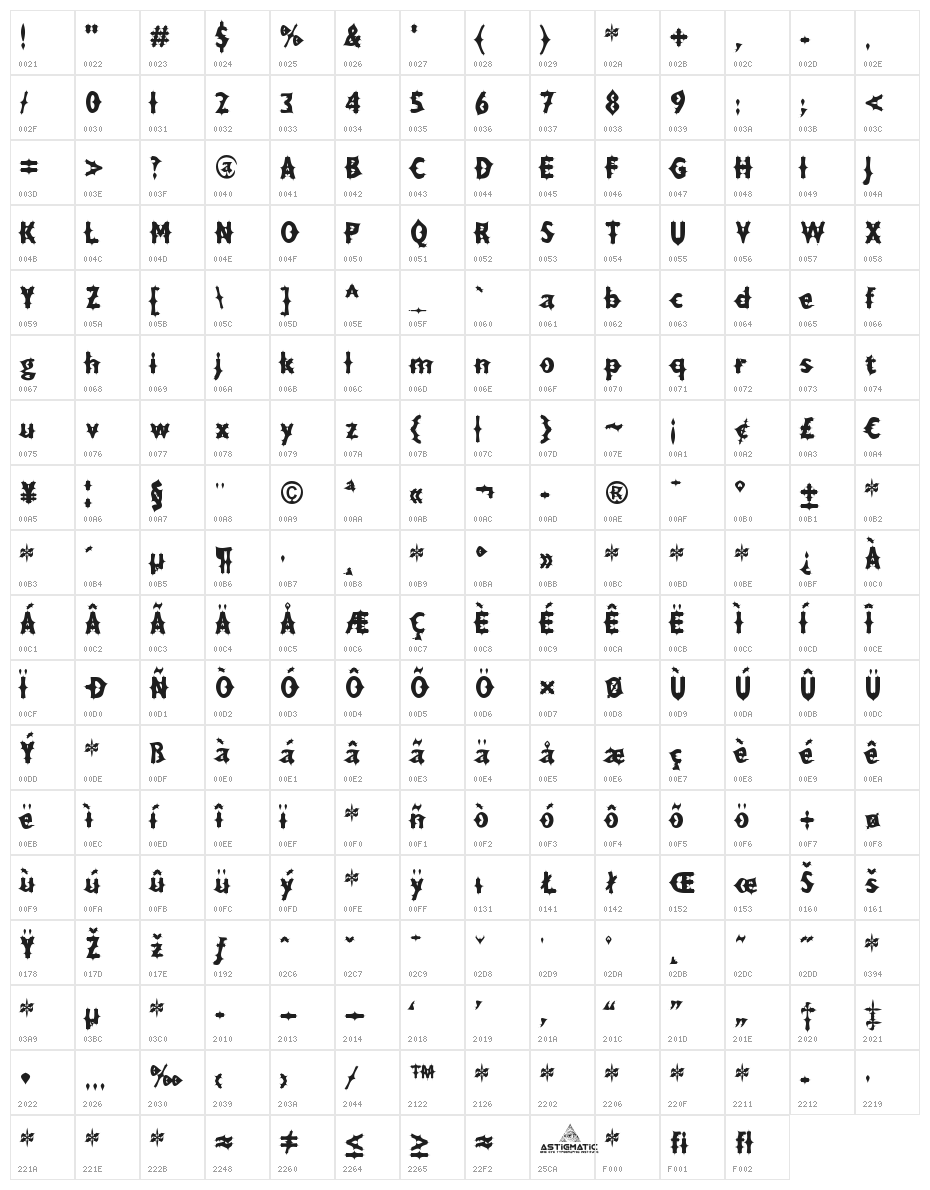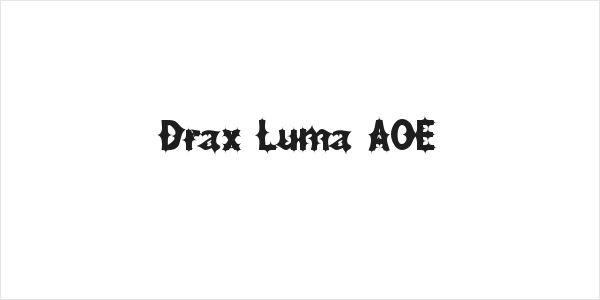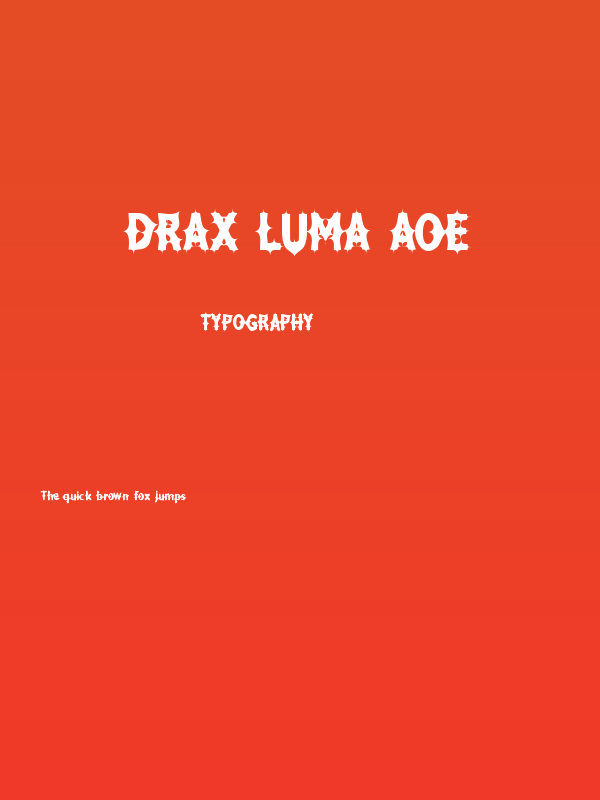
Drax Luma AOE Font
Drax Luma AOE Description
This font exhibits a bold and dramatic style, characterized by sharp, angular edges and a gothic-inspired aesthetic. The letters are heavily stylized, with pointed serifs and intricate details that give it a unique, almost thorn-like appearance. The uppercase and lowercase letters maintain a consistent design theme, while the numbers and special characters follow suit with equally elaborate forms. This font's striking visual impact makes it ideal for projects that require a strong, attention-grabbing typeface.
| Overall Style | Gothic, Decorative |
| Proposed Projects | Ideal for Halloween-themed designs, horror movie posters, gothic event invitations, and edgy branding projects. |